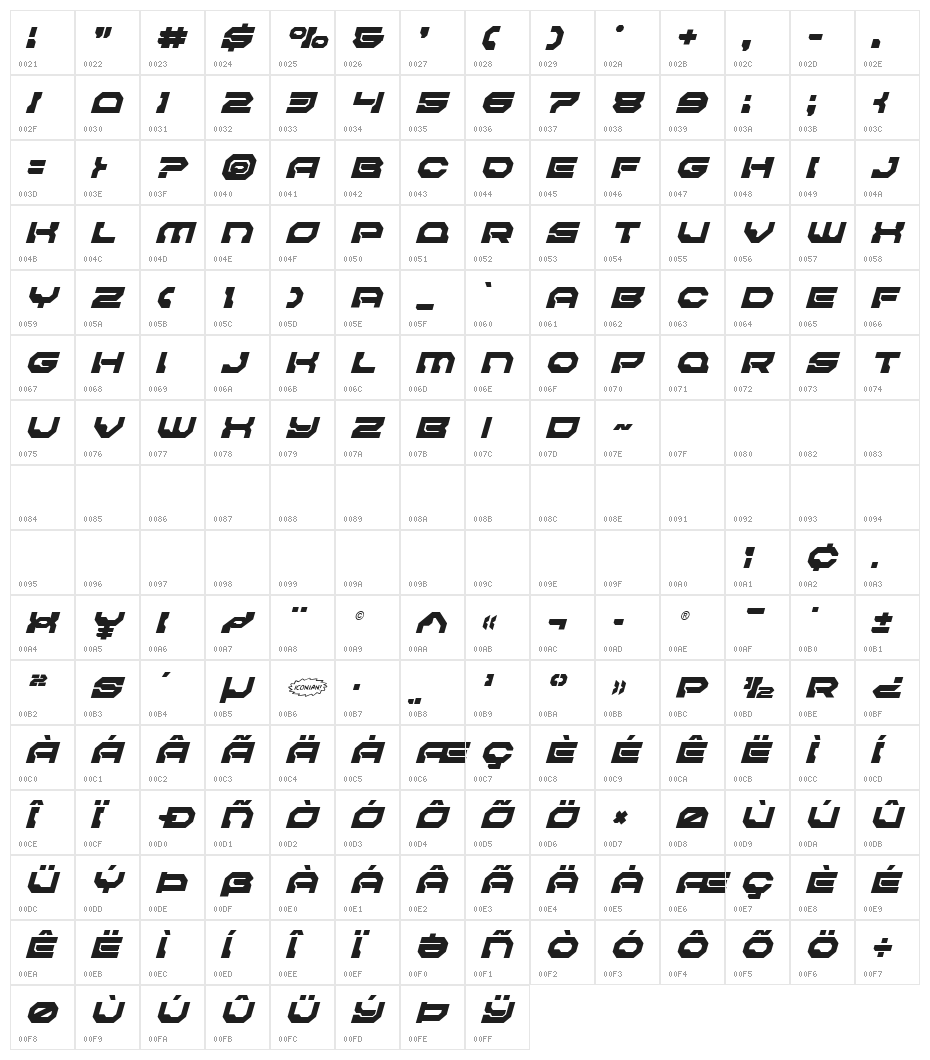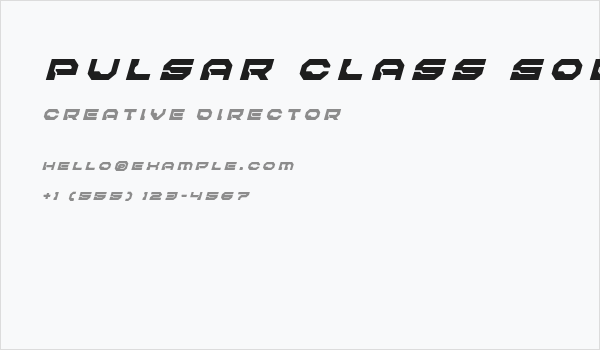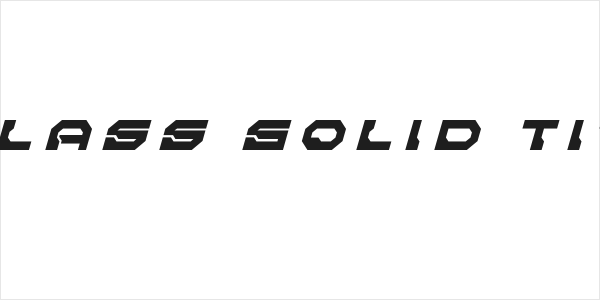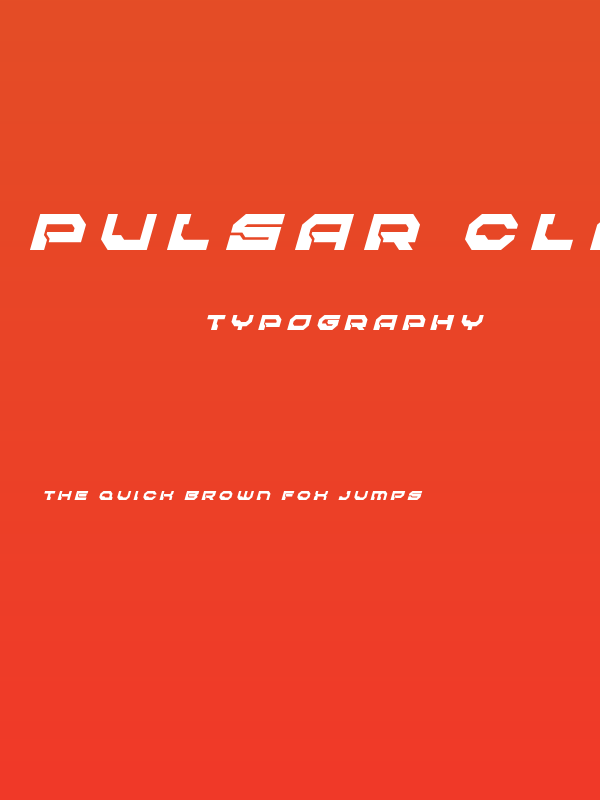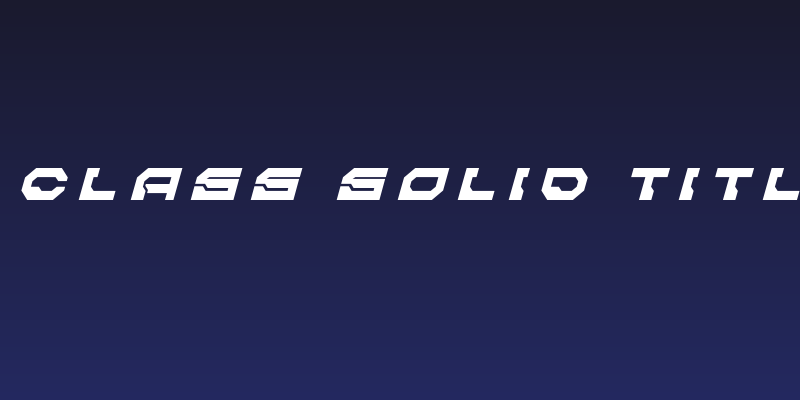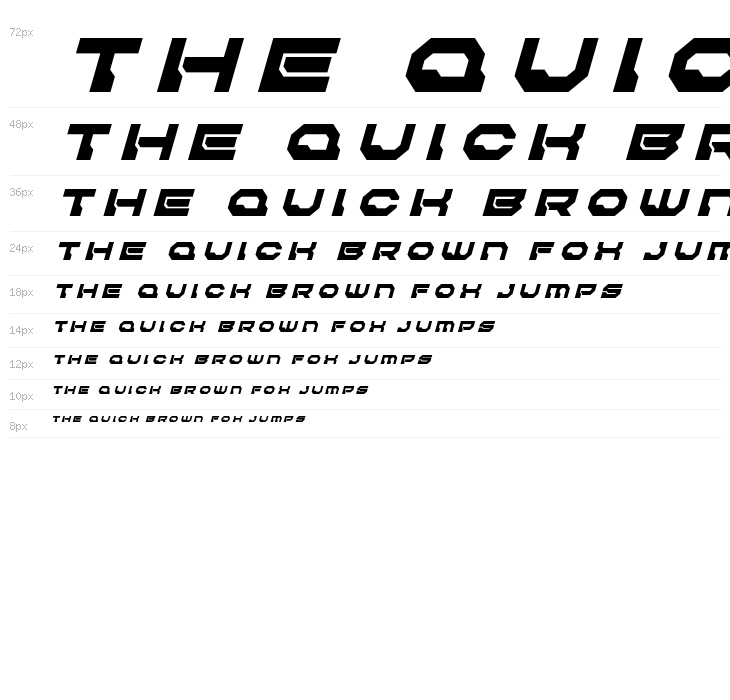
Pulsar Class Solid Title Italic Font
Pulsar Class Solid Title Italic Description
This font features a futuristic and angular design, characterized by its bold and solid appearance. The letters are italicized, giving a sense of motion and dynamism. Each character is constructed with sharp, geometric lines, creating a modern and edgy aesthetic. The uppercase and lowercase letters maintain a consistent style, with a slight slant that enhances the italic effect. The numerals and special characters follow the same design principles, ensuring uniformity across all glyphs. This font is ideal for projects that require a strong, impactful visual presence.
| Proposed Projects | Perfect for sci-fi themed designs, video game titles, technology branding, and modern posters. |